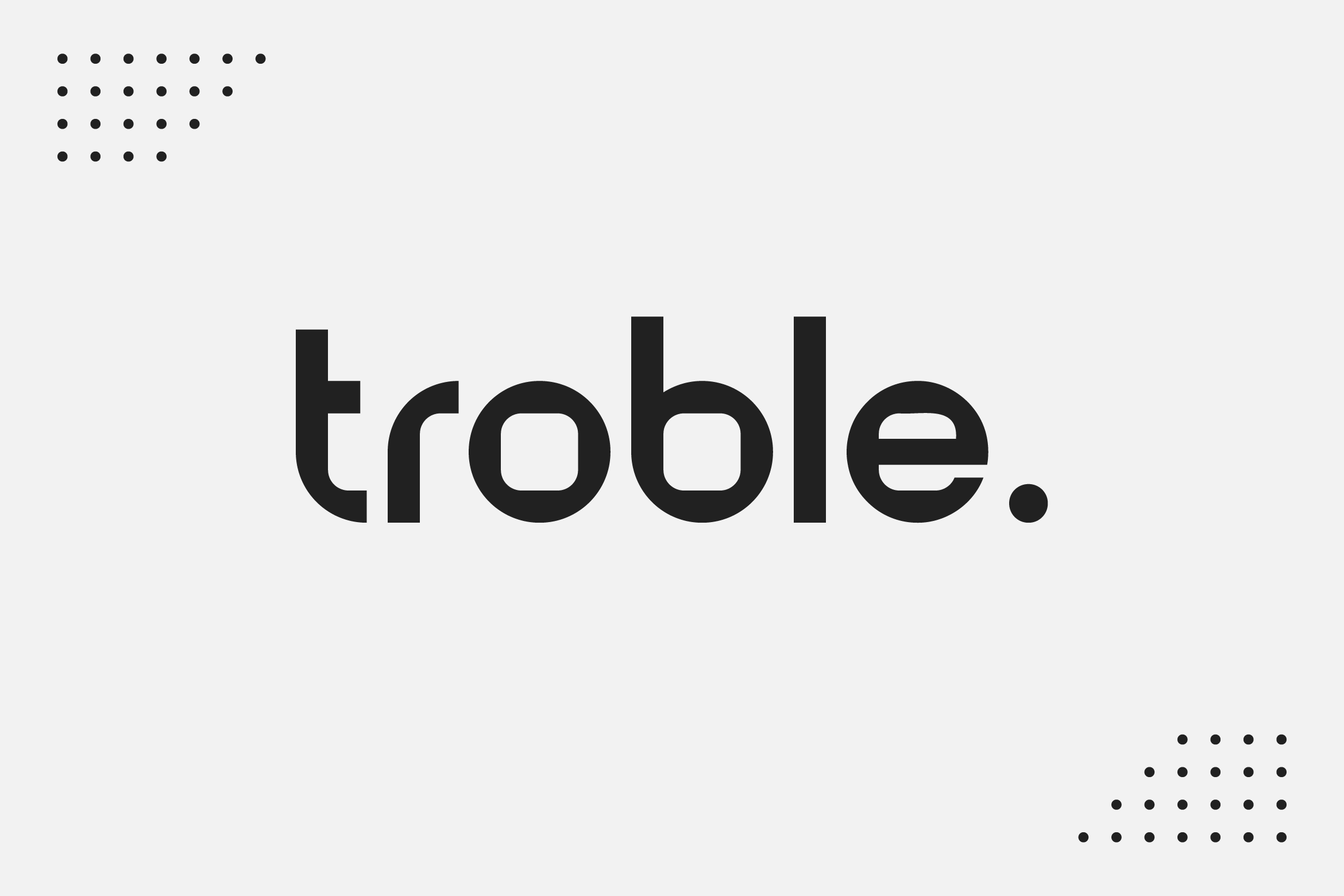
- Troble Modern Sans Serif Font
Troble is a contemporary sans serif font that combines strength with minimalism, making it ideal for modern branding and bold visual statements. With its clean lines, strong proportions, and geometric precision, Troble ensures clarity while delivering a confident aesthetic.
Perfect for logos, headlines, editorial layouts, packaging, and social media graphics, Troble brings versatility and sophistication to every project. Its well-structured design makes it suitable for both print and digital use, maintaining readability and elegance across all sizes.
The font includes uppercase and lowercase letters, numerals, punctuation, multilingual support, and stylistic alternates for creative flexibility.
Make your designs stand out with Troble — the sans serif font that defines modern strength and timeless appeal.